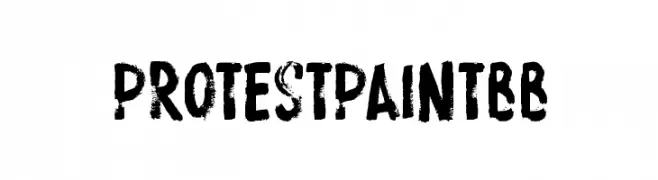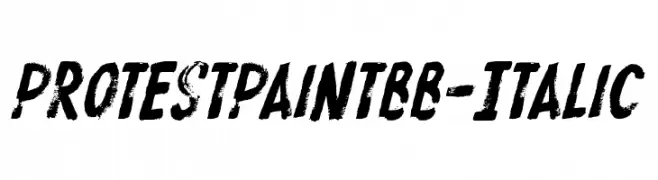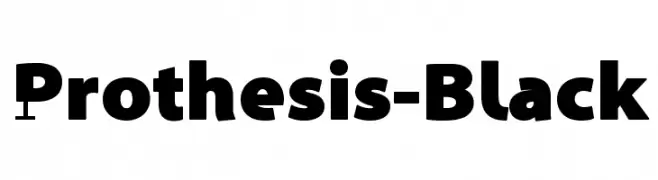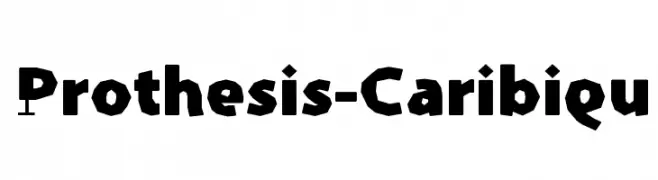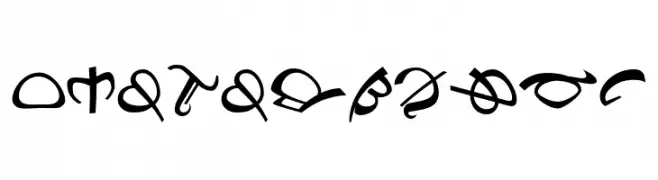
A bold, hand-painted style font with textured, brush-like strokes.
A bold, distressed italic font with a hand-painted, dynamic style.
A bold, modern font with geometric elements and strong presence.
A bold, angular font with a modern and edgy style.
Whimsical pictogram font with abstract and stick-figure characters.
A futuristic, geometric font with blocky, angular letterforms.
A modern, geometric font with sharp angles and circular forms.
A decorative and abstract font resembling a fictional script.
Bold, playful, hand-drawn display font with rounded, uneven strokes.
A bold, geometric font with a futuristic, tech-inspired design.